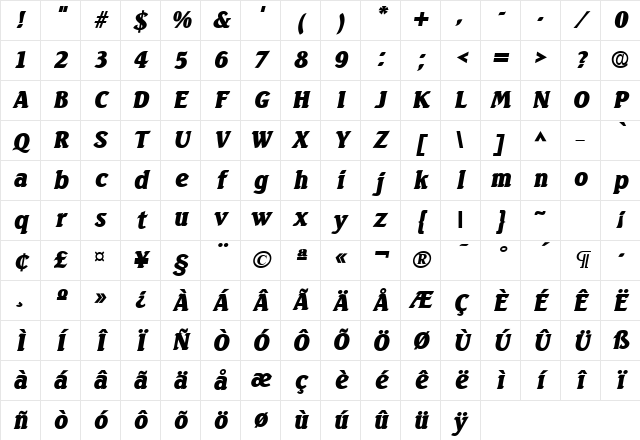
Seabird Heavy SF Bold Italic
Design Context for Seabird Heavy SF
Seabird Heavy SF is a composed and adaptable typeface that performs quietly and consistently across a wide range of design contexts. The slanted form adds forward momentum and visual energy. Its bold stroke weight gives it real presence on the page.
Pro Tip: Use Seabird Heavy SF for emphasis, pull quotes, and subheadings where its slanted energy can add rhythm to the layout.